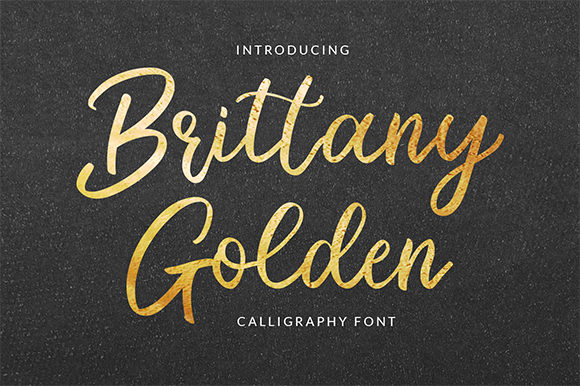
Brittany Golden Font: The Ultimate Guide to this Unique Handwritten Font
Are you looking for a font that can add a personal touch to your designs? Look no further than the Brittany Golden Font. This unique handwritten font is perfect for a variety of projects, from crafting and digital designing to presentations and greeting card making. In this article, we’ll take a closer look at the Brittany Golden Font and explore its features, benefits, and uses.
What is Brittany Golden Font?
Brittany Golden Font is a one-of-a-kind handwritten font that is designed to add a touch of elegance and sophistication to your designs. Its incredibly versatile style makes it perfect for a wide range of projects, from creative crafts to professional presentations.
The font features a unique blend of cursive and print styles, making it both elegant and easy to read. The letters are carefully crafted to create a sense of movement and fluidity, giving your designs a dynamic and eye-catching look.
Benefits of Using Brittany Golden Font
So why choose Brittany Golden Font for your next project? Here are just a few benefits of using this amazing font:
- Versatility: The Brittany Golden Font is incredibly versatile, making it perfect for a wide range of projects, from crafting and digital designing to presentations and greeting card making.
- Elegance: The font features a unique blend of cursive and print styles, giving your designs a touch of elegance and sophistication.
- Easy to Read: The letters are carefully crafted to create a sense of movement and fluidity, making it easy to read and understand.
- Unique: The Brittany Golden Font is a one-of-a-kind font that will set your designs apart from the rest.
Uses of Brittany Golden Font
The Brittany Golden Font is perfect for a wide range of projects, including:
- Crafting: Use the font to create personalized crafts, such as handmade cards and gift tags.
- Digital Designing: The font is perfect for digital designing, including social media graphics, blog posts, and website headers.
- Presentations: Add a touch of elegance to your presentations with the Brittany Golden Font.
- Greeting Card Making: Create beautiful and unique greeting cards with the Brittany Golden Font.
Tips for Using Brittany Golden Font
Here are a few tips for getting the most out of the Brittany Golden Font:
- Experiment with Different Sizes: The font looks great in a variety of sizes, so don’t be afraid to experiment to find the perfect size for your project.
- Pair with Other Fonts: The Brittany Golden Font pairs well with other fonts, so try pairing it with a bold font for a striking contrast.
- Use in Combination with Images: The font looks great in combination with images, so try using it to add a caption to a photo or illustration.
In conclusion, the Brittany Golden Font is a unique and versatile handwritten font that is perfect for a wide range of projects. Its elegant style and ease of use make it a great choice for anyone looking to add a personal touch to their designs. Whether you’re a crafty person, a digital designer, or a presentation pro, the Brittany Golden Font is sure to become a favorite in your font collection.